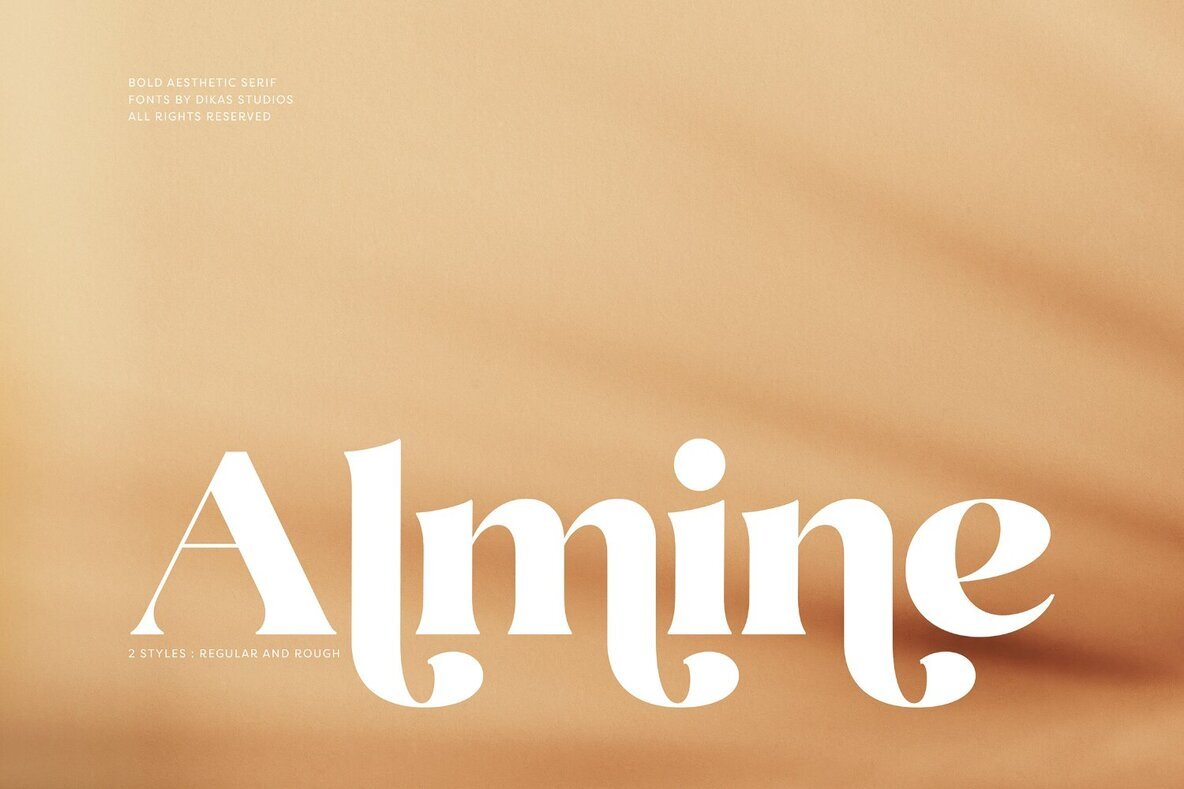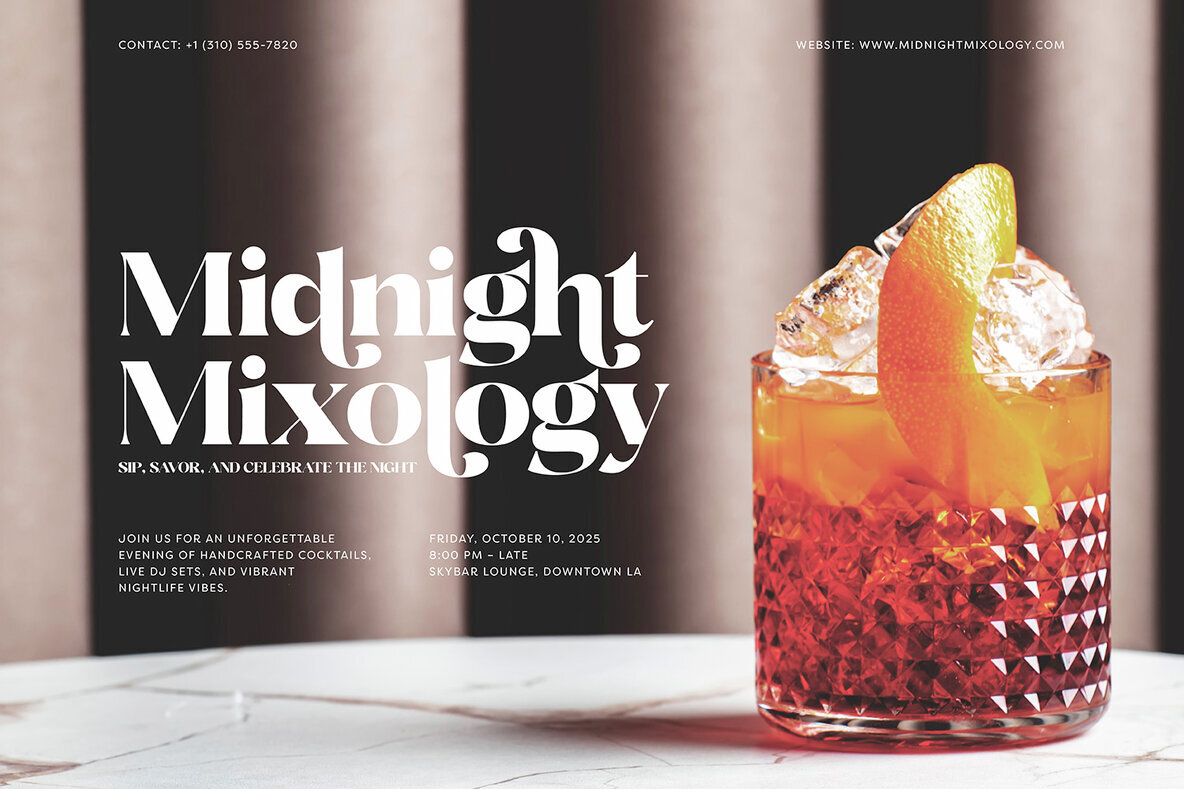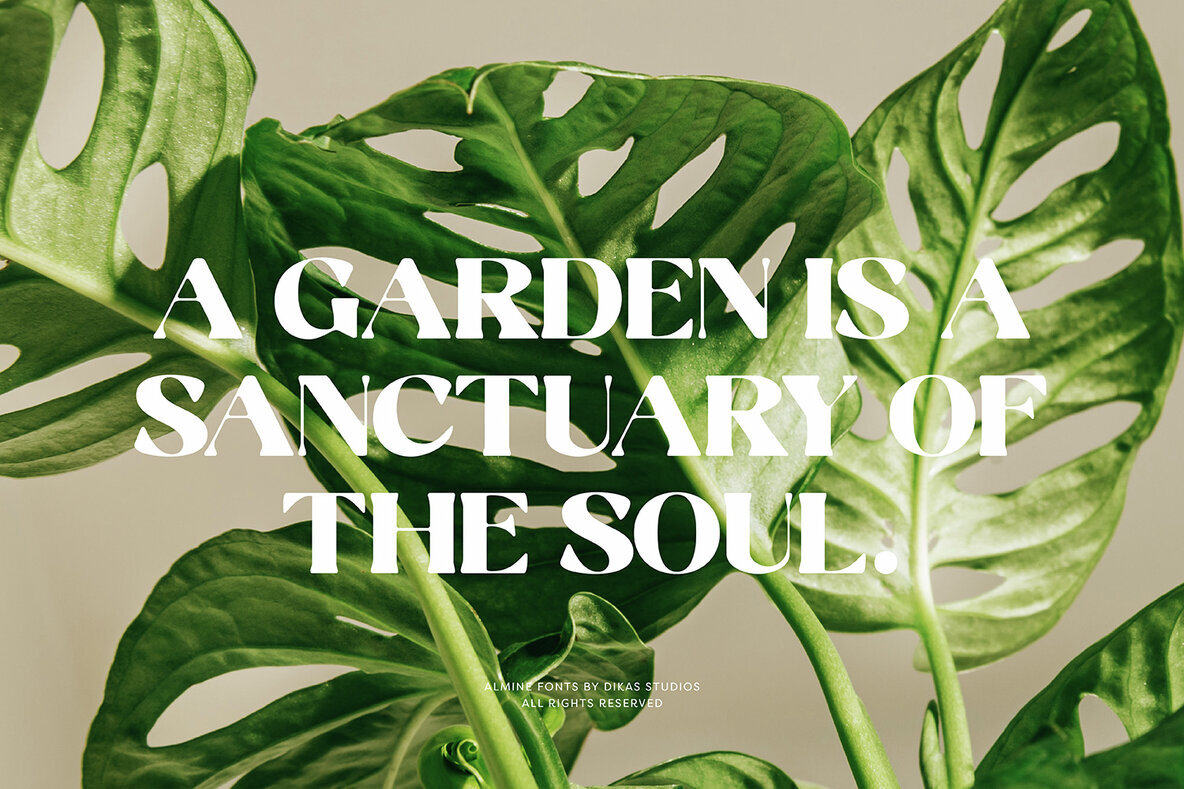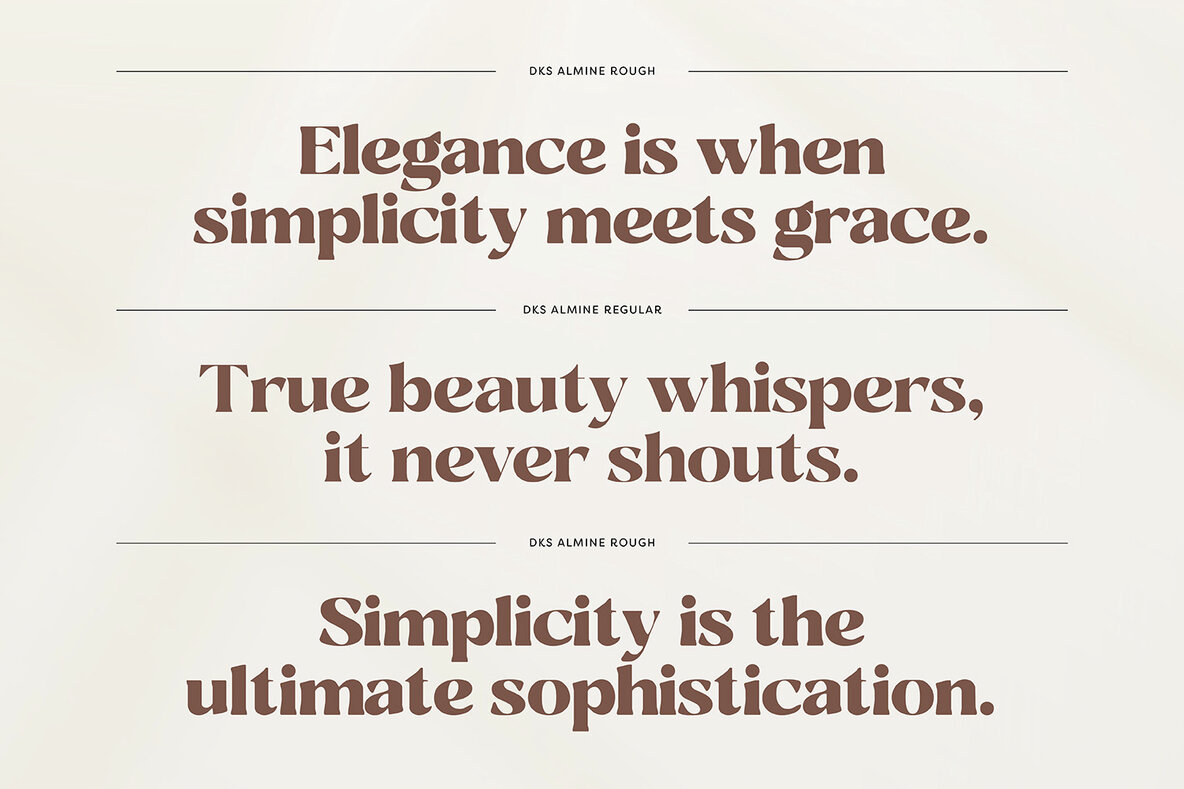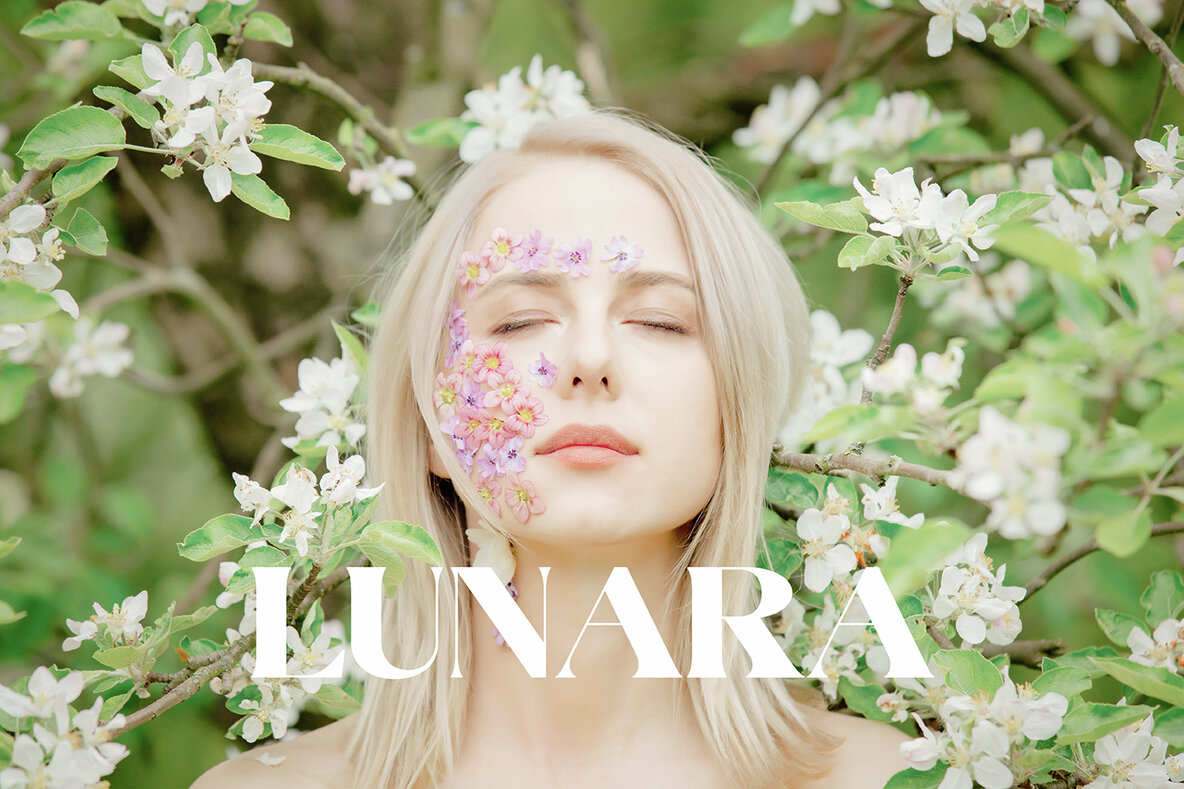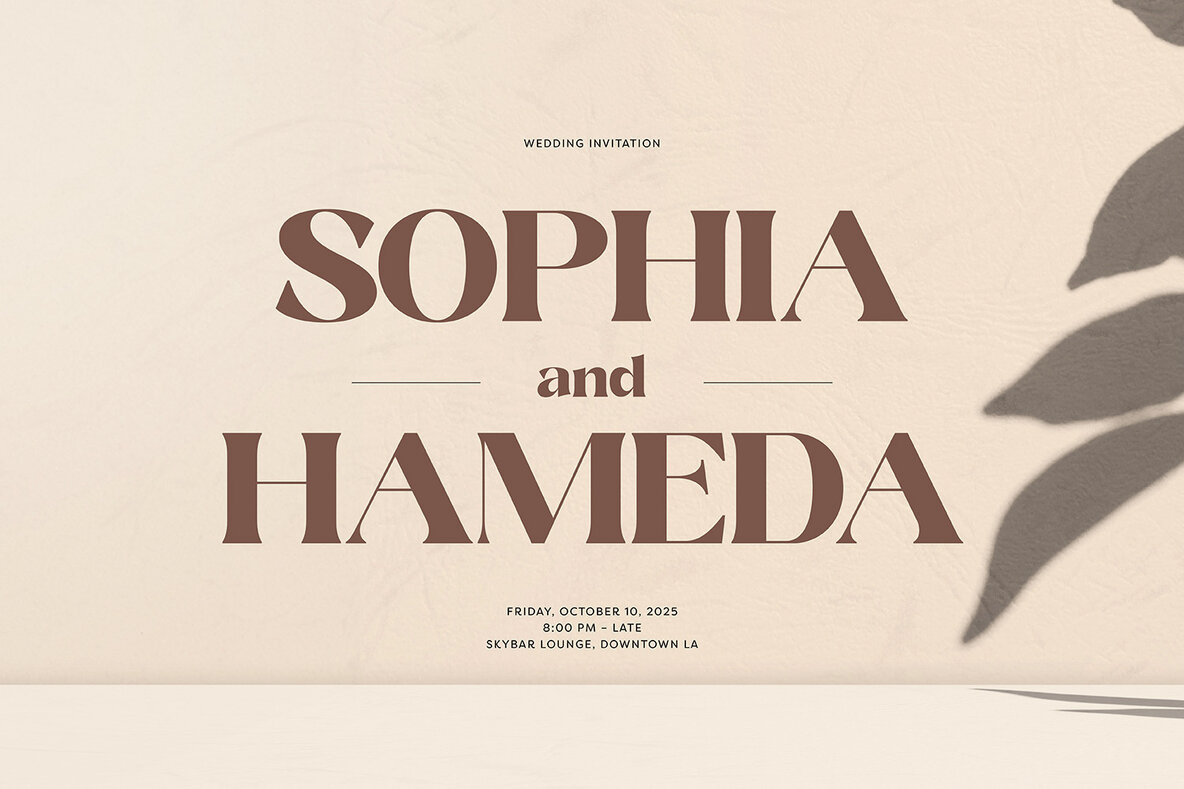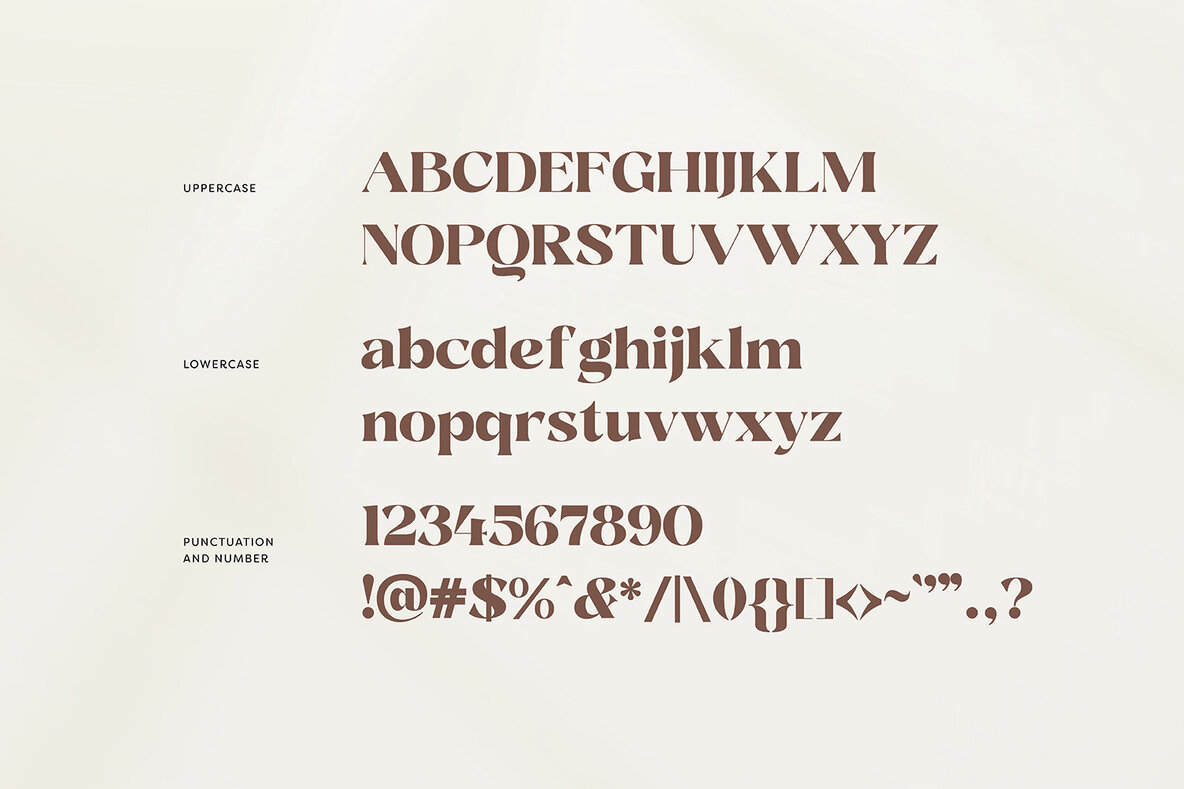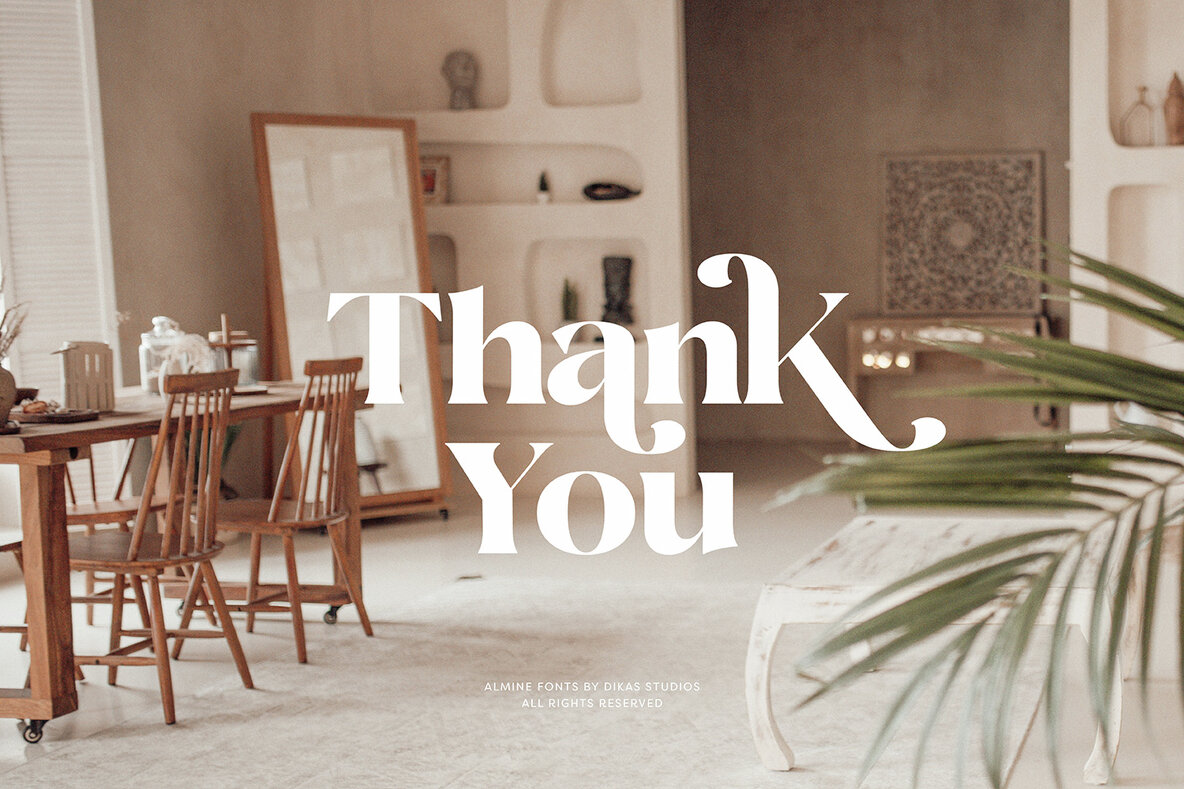
Almine Font
DKS Almine Regular
DKS Almine Rough
Almine is a bold serif typeface distinguished by its refined curves and classic elegance. Designed for maximum visual impact, this typeface stands out in headlines, logos, and statement graphics, lending projects a confident, retro-inspired personality. High contrast and stylish serifs give Almine a distinctive character that draws attention without overwhelming your layout. The typeface offers two versatile styles—Regular for crisp clarity and Rough for a hand-drawn, textured feel. Alternate characters expand creative options, allowing you to tailor your designs with subtle variation or striking flourishes. The design draws inspiration from vintage typography, channeling nostalgic charm while maintaining a polished, contemporary look.Almine – Bold Aesthetic Serif Typeface